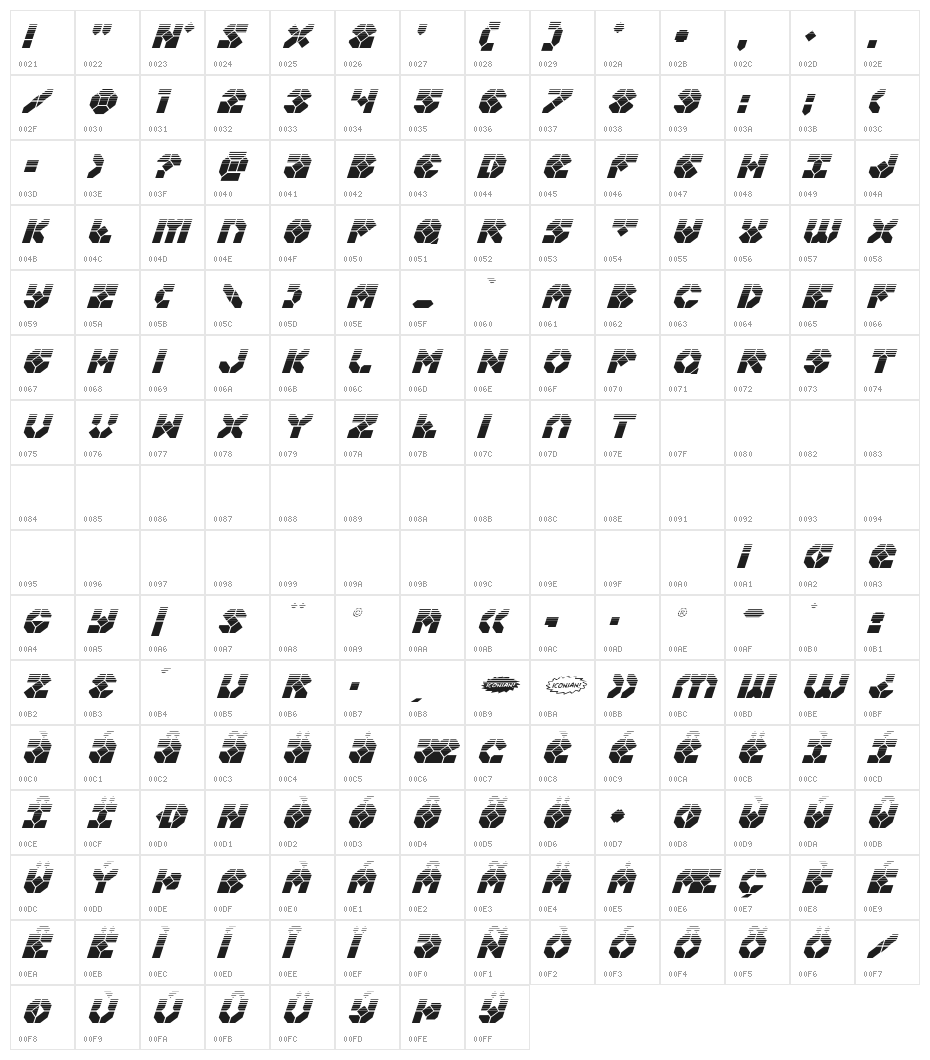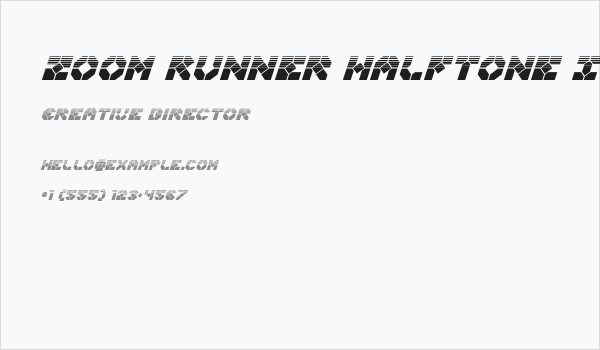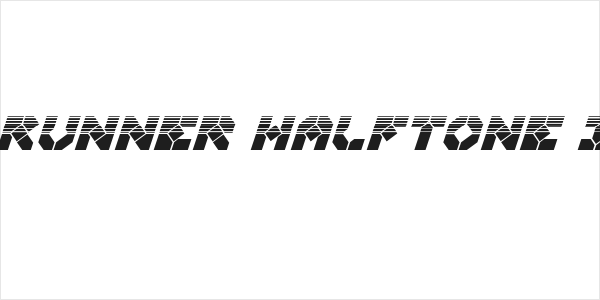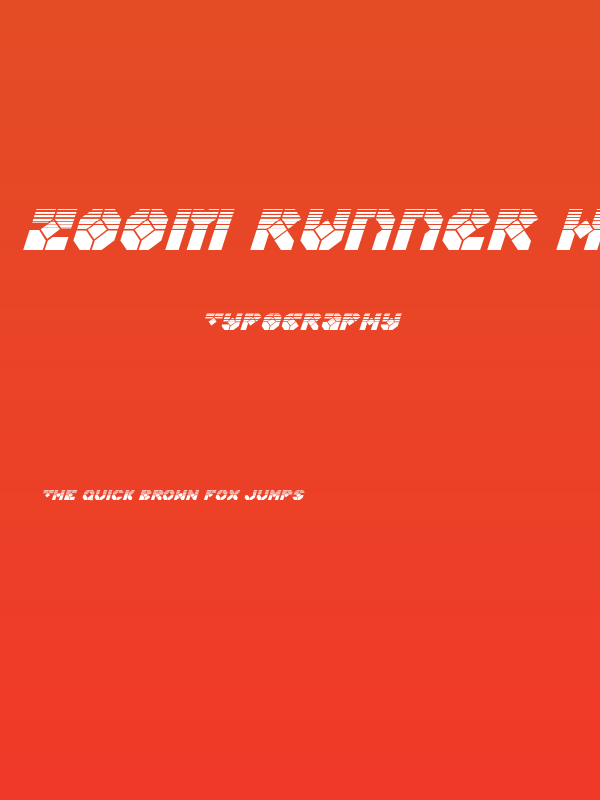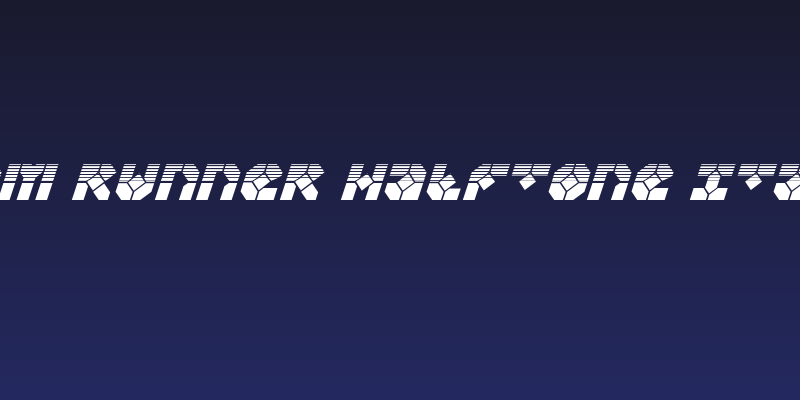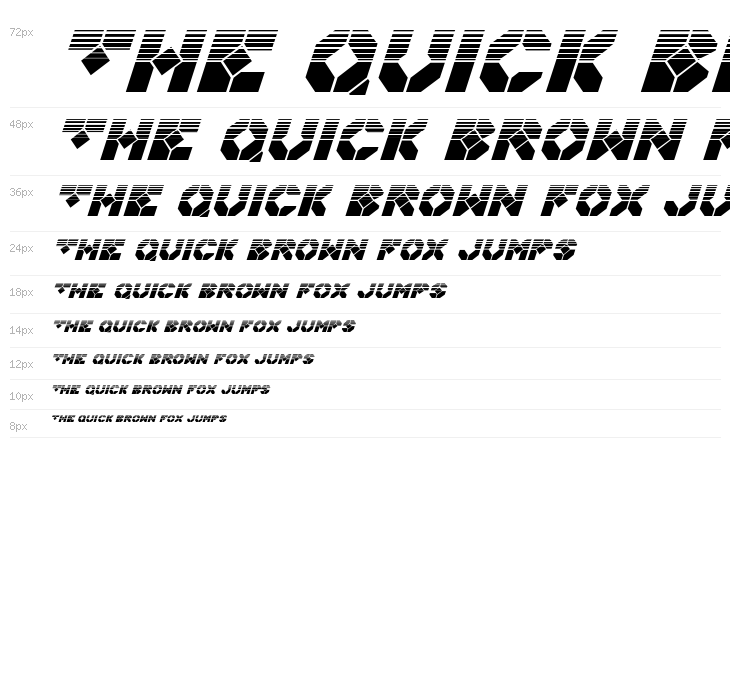
Zoom Runner Halftone Italic Font
Zoom Runner Halftone Italic Description
This font features a bold and dynamic design with a halftone effect, giving it a futuristic and high-energy appearance. The characters are italicized, adding a sense of motion and speed. The geometric shapes and sharp angles create a visually striking look, making it ideal for attention-grabbing headlines or logos. The use of horizontal lines within the characters enhances the halftone effect, providing a unique texture and depth. This font is perfect for projects that require a modern and edgy aesthetic.
| Proposed Projects | Suitable for sports branding, tech-related advertisements, futuristic posters, and dynamic logo designs. |